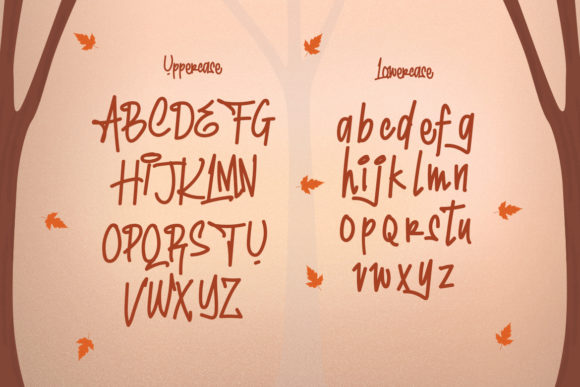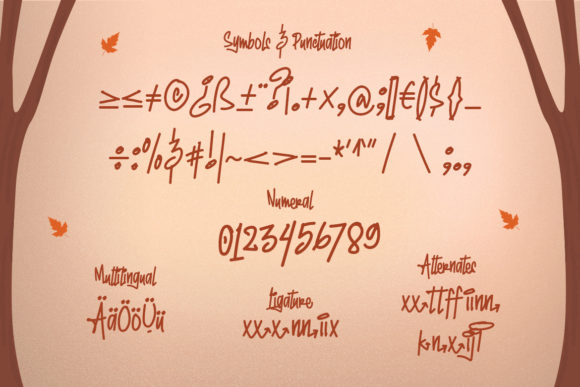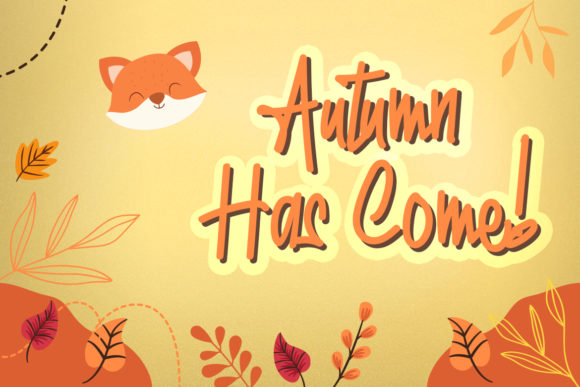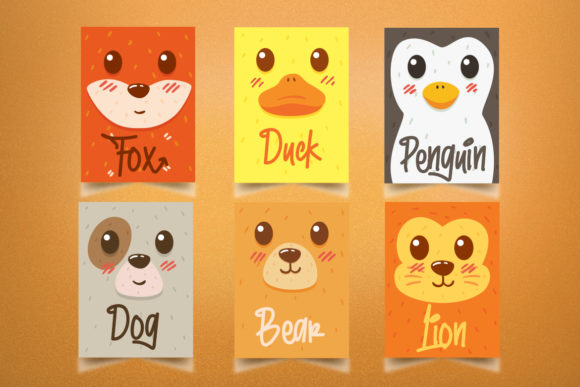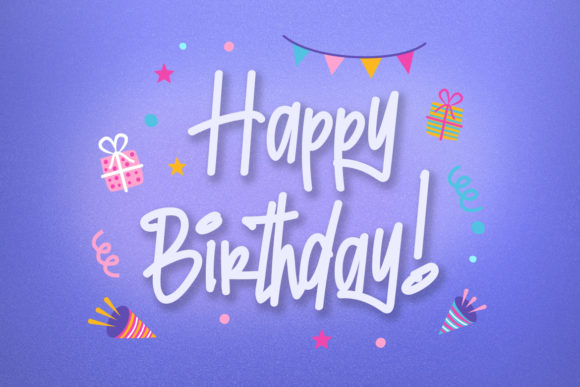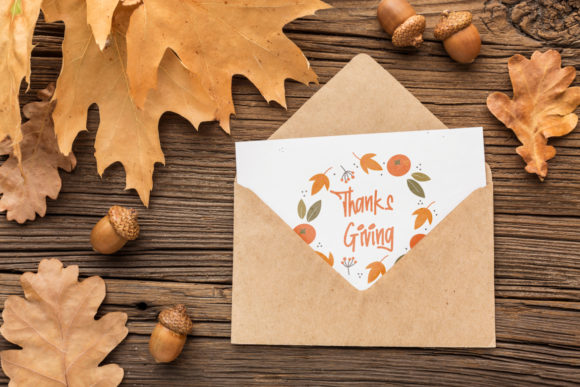
Introduction to My Fox Font
Have you ever been working on a creative project, pouring your heart and soul into it, and then you stumble upon the perfect font to tie everything together? That’s exactly what happened when I discovered the My Fox Font. Its adorable and playful feel instantly transformed my design, making it stand out from the rest.
Whether you’re designing a birthday card, a clothing label, or a poster, the My Fox Font is sure to add a touch of whimsy and personality to your work. In this article, we’ll dive deeper into the world of this charming font and explore its many uses and benefits.
Key Features of My Fox Font
- High-quality design: My Fox Font is a premium font designed to add a touch of sophistication and elegance to any creative project.
- Unique characteristics: This font features a unique blend of modern and classic elements, making it an excellent choice for designers looking to add a touch of personality to their creative projects.
- Perfect for design projects: My Fox Font is ideal for use in various design projects, including branding, advertising, and editorial content.
Honest Review: My Fox Font
As a designer, I’m always on the lookout for high-quality design resources to elevate my creative projects. Recently, I stumbled upon the My Fox Font, and I’m excited to share my honest review.
First, let’s talk about what works well. ✨ The My Fox Font offers a beautiful, whimsical design that’s perfect for kids’ books, educational materials, or any project that needs a playful touch. The font is also available for free download, which is a huge plus. I appreciate the fact that it’s a transparent background, making it easy to use with any background image or color.
- Beautiful, whimsical design
- Perfect for kids’ books, educational materials, or playful projects
However, there are some limitations to consider. ⚠️ The font only comes in a single weight, which might limit its versatility for more complex projects. Additionally, the font’s character set is relatively small, which could be a concern for projects that require a wide range of characters.
Overall, I’m impressed with the My Fox Font. While it may have some limitations, its unique design and free download make it a valuable design resource for creative projects. I’d definitely recommend it for anyone looking for a playful, high-quality font.
My Fox Font is ideal for a variety of creative projects, including logos, brochures, and social media graphics. Its clean and modern design makes it perfect for a wide range of industries, from fashion to technology. With its free download and high-quality design, My Fox Font is a must-have design resource for any creative professional.
Alternatives to My Fox Font
Comic Sans MS is a classic, cursive font often used for creative projects that require a friendly, approachable feel. It’s a great choice for designs with a transparent background or a playful tone.
Compared to My Fox Font, Comic Sans MS has a more casual, handwritten look and is often associated with informal or humorous designs.